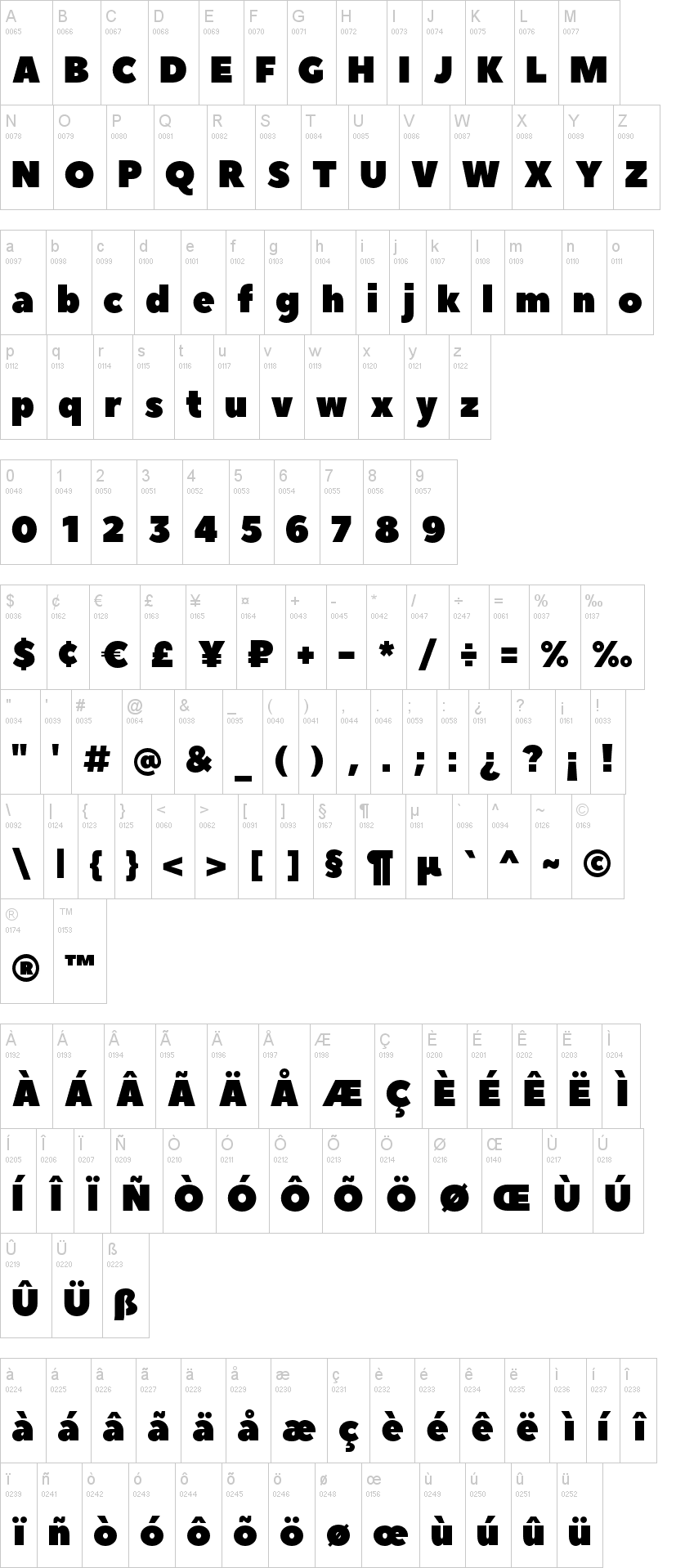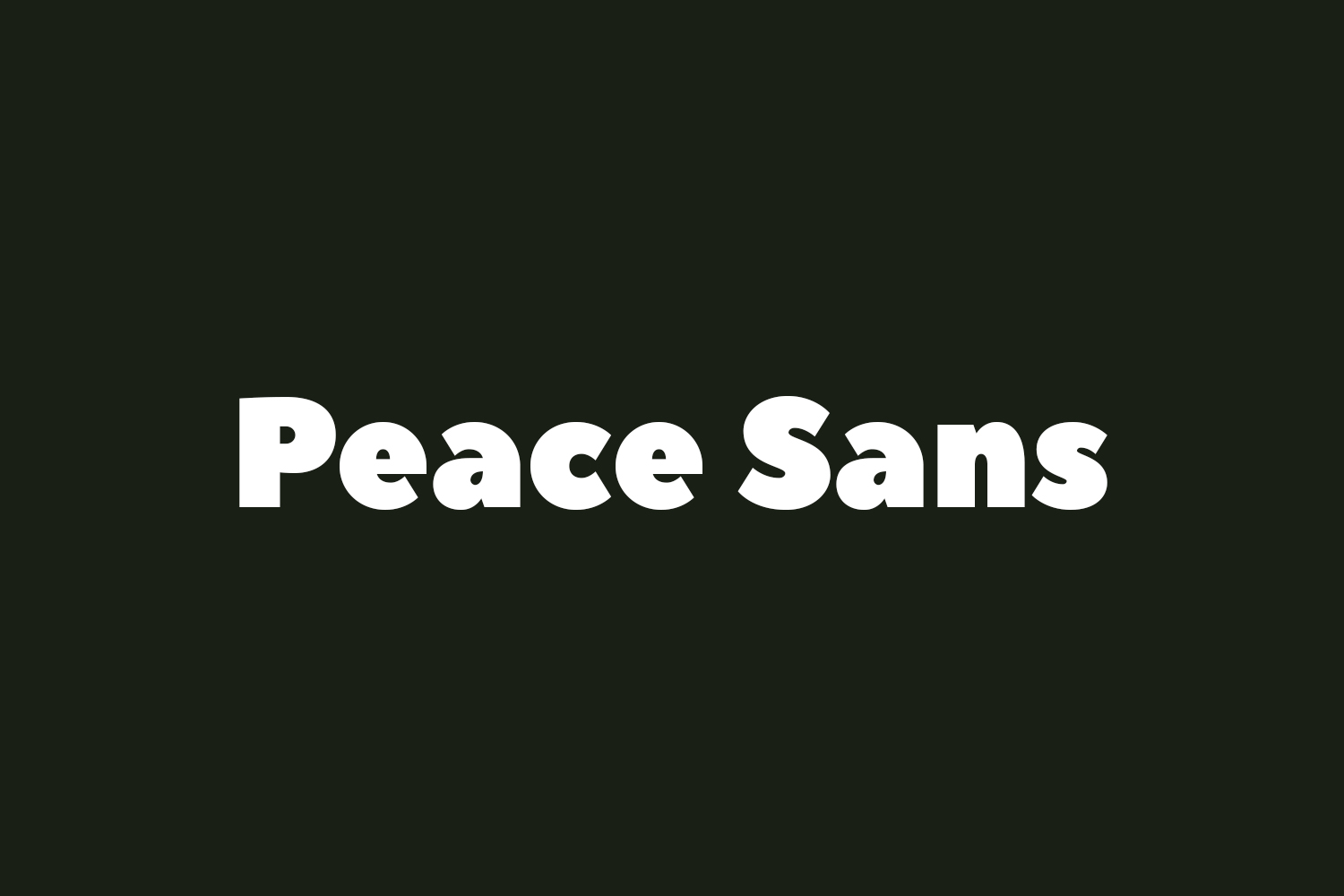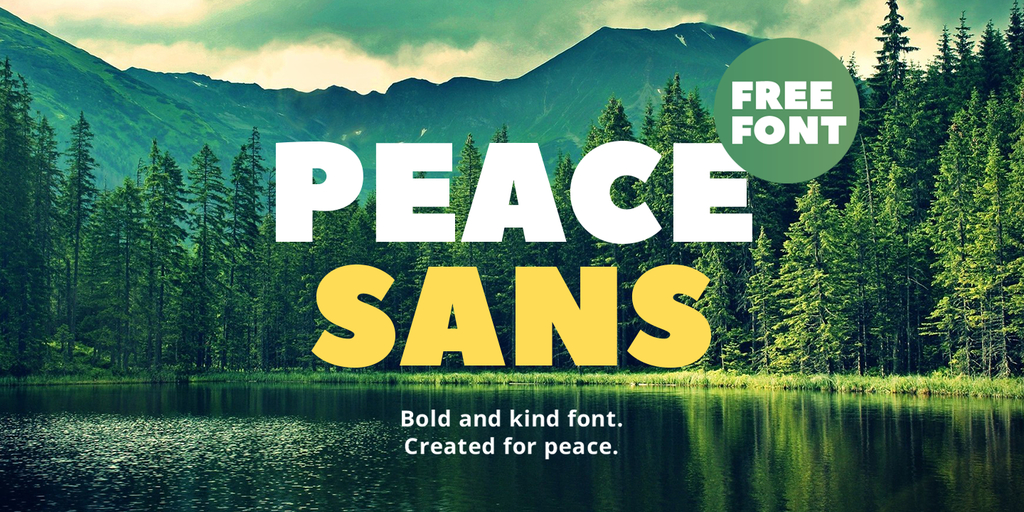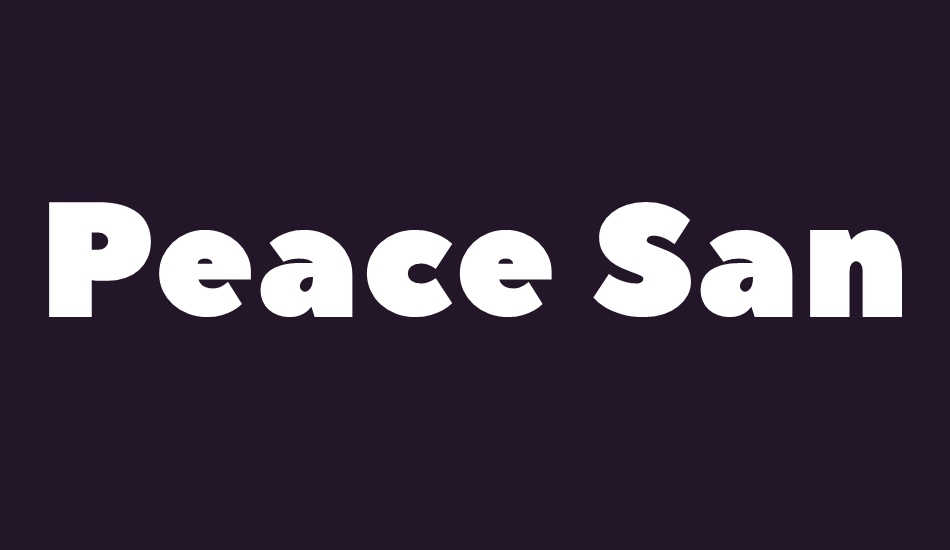
Peace Sans Font
Peace Sans Font - In basic > sans serif. Web peace sans is a free bold font made with love! Use it any way, its absolutely free. It can make your typography more peaceful and kind. Peace sans à € by jovanny lemonad. Use it any way, its absolutely free. It was created in the. Web peace sans is a free bold font made with love! Click now to create a custom image with. It can make your typography more peacefull and kind.
Click now to create a custom image with. In basic > sans serif. Web free download of peace sans font. Use it any way, its absolutely free. It was created in the. It can make your typography more peacefull and kind. Peace sans à € by jovanny lemonad. Web peace sans is a free bold font made with love!
Use it any way, its absolutely free. It can make your typography more peaceful and kind. It was created in the. Click now to create a custom image with. Web peace sans is a free bold font made with love! It can make your typography more peacefull and kind. In basic > sans serif. It was created in the. Use it any way, its absolutely free. Peace sans à € by jovanny lemonad.
Peace Sans Font
It was created in the. Click now to create a custom image with. Use it any way, its absolutely free. Web free download of peace sans font. Web peace sans is a free bold font made with love!
Peace Sans free Font What Font Is
It can make your typography more peacefull and kind. Peace sans à € by jovanny lemonad. Web peace sans is a free bold font made with love! Use it any way, its absolutely free.
Peace Sans Schriftart
Peace sans à € by jovanny lemonad. Use it any way, its absolutely free. In basic > sans serif. It can make your typography more peacefull and kind. Use it any way, its absolutely free.
Peace Sans Fonts Shmonts
It can make your typography more peaceful and kind. It was created in the. Click now to create a custom image with. Use it any way, its absolutely free. It was created in the.
Peace Sans A Bold Font With PixelPerfect Curves. HipFonts
Peace sans à € by jovanny lemonad. In basic > sans serif. Web peace sans is a free bold font made with love! It can make your typography more peaceful and kind. Use it any way, its absolutely free.
Peace Sans free Font What Font Is
It was created in the. Use it any way, its absolutely free. Peace sans à € by jovanny lemonad. It can make your typography more peaceful and kind. Web peace sans is a free bold font made with love!
It was created in the. Web peace sans is a free bold font made with love! Use it any way, its absolutely free. Peace sans à € by jovanny lemonad.
In basic > sans serif. Use it any way, its absolutely free. It was created in the. Web peace sans is a free bold font made with love! Use it any way, its absolutely free.
Peace Sans free font
Peace sans à € by jovanny lemonad. Web peace sans is a free bold font made with love! It can make your typography more peaceful and kind. It was created in the. Use it any way, its absolutely free.
It Was Created In The.
Web peace sans is a free bold font made with love! It can make your typography more peacefull and kind. Use it any way, its absolutely free. In basic > sans serif.
It can make your typography more peaceful and kind. Web peace sans is a free bold font made with love! It was created in the. Peace sans à € by jovanny lemonad.